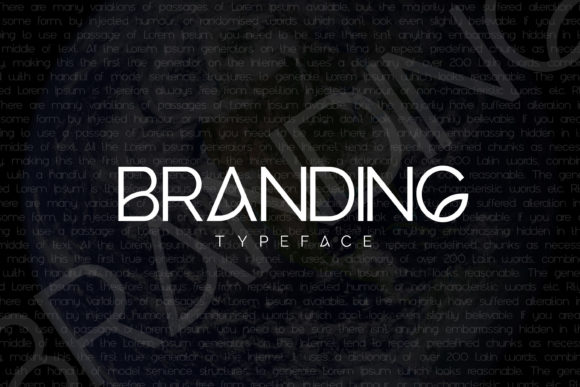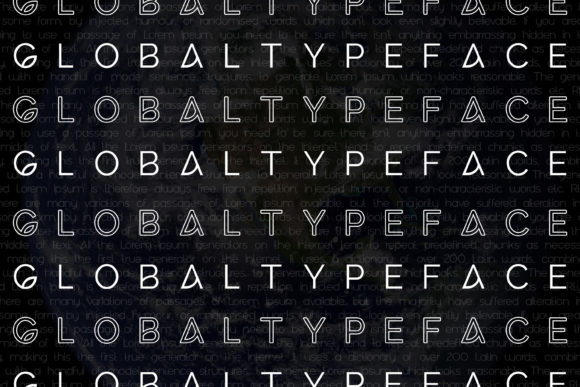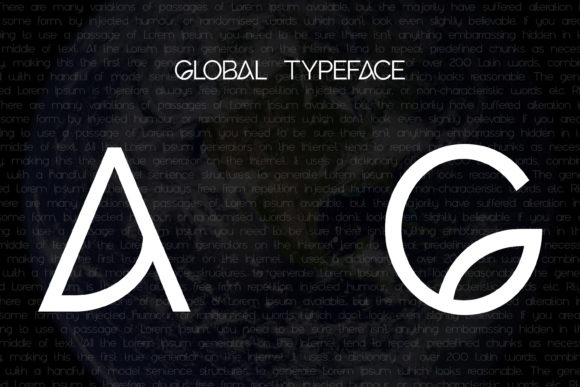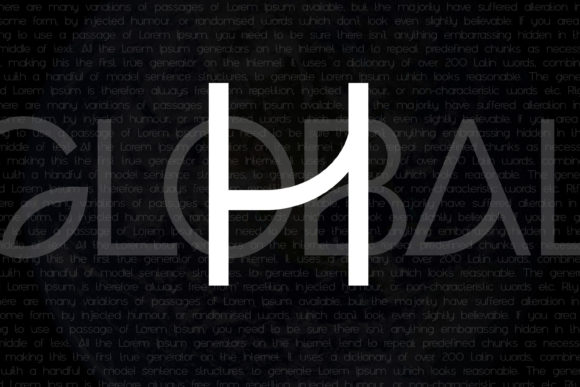
The Perfect Font for a Global Audience
As a designer, there’s nothing quite like the thrill of discovering a new font that perfectly captures the essence of your latest project. It’s that moment when you know you’ve found ‘the one’ – the perfect blend of style, sophistication, and flair. For me, that moment came when I stumbled upon the Global Font, a sleek and modern display font that’s been revolutionizing the world of design.
The Global Font is a geometric, thin lettered font that’s specifically designed to add a touch of modernity to any project. Whether you’re creating web designs, business cards, or any other visual content, this font is sure to make a lasting impression. With its clean lines and elegant typography, the Global Font is a valuable asset for any designer looking to elevate their work and stand out from the crowd.
Global Font Key Features
- Large Character Set: The font includes a comprehensive character set, covering multiple languages, including Latin, Cyrillic, Greek, and many Asian scripts.
- Unique Character Design: Global Font features a distinctive and modern design, with carefully crafted letterforms and subtle flair, making it ideal for use in branding, publishing, and digital media.
- Font Weight and Style: The font includes a range of font weights, from Light to Extra Bold, and styles, such as Italic and Bold Italic, providing versatility and expressiveness.
Designer Review: Global Font
Overall, I’m impressed with the Global Font. It’s a great choice for international projects where you need to cater to multiple languages and scripts. Here’s what I like about it:
- ✨ Extensive language support: Global Font includes a wide range of languages, from Latin to Cyrillic, Chinese, and more. It’s a lifesaver for designers working on multilingual projects.
- ✨ High-quality glyphs: The font’s glyphs are well-designed and readable, even at small font sizes.
- ✨ Customizable: Global Font offers a range of weights and styles, making it easy to find the perfect fit for your project.
However, I do have some concerns:
- ⚠️ Limited personality: While the font is functional, it lacks a distinct personality or flair. It’s a safe choice, but it may not stand out in a crowded design landscape.
- ⚠️ Some weight inconsistencies: I noticed a few weight inconsistencies across different languages and scripts, which can be jarring for users.
Overall, I’d recommend Global Font for projects that require a versatile, language-friendly font. While it may not be the most exciting choice, it gets the job done.